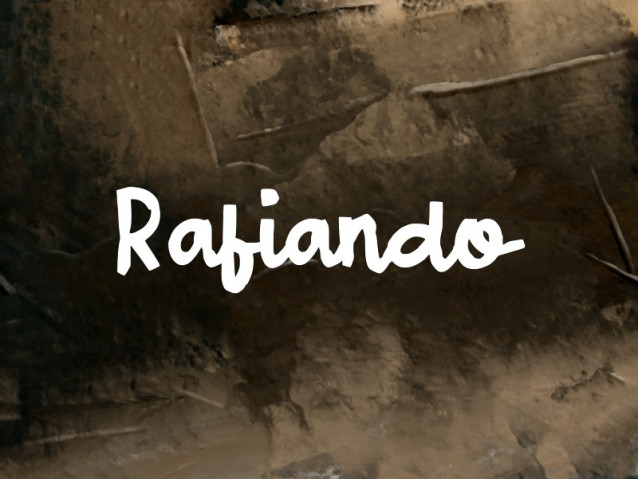
Rafiando Font
Rafiando Font a contemporary script font that perfectly captures the essence of natural, effortless handwriting. With its flowing lines and casual charm, this font is designed to add a personal and authentic touch to any creative project.